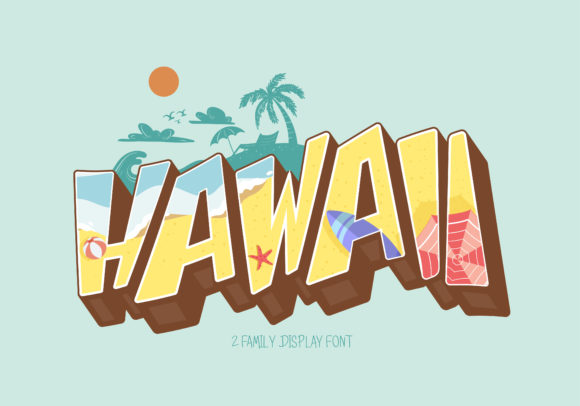
Looking to add a touch of boldness and quirkiness to your designs? Look no further than the Hawaii Font! Created by BB Type Studios, this display font is the perfect choice for anyone seeking a font with a friendly and summery feel.
With its unique charm, Hawaii Font is incredibly versatile, making it an ideal option for a wide range of contexts. Whether you're designing a tropical-themed invitation, a fun and playful logo, or even a comic strip, this font is sure to elevate your creations to a whole new level.
Imagine capturing the essence of a sun-soaked beach, the sound of crashing waves, and the vibrant colors of a tropical paradise - all embodied in a single font. Hawaii Font brings that exotic atmosphere right to your fingertips, allowing you to infuse your designs with a sense of adventure and joy.
When you download Hawaii Font, you're not just getting a typeface; you're unlocking a world of creativity. Let this font transport your audience to faraway lands, where every word becomes a visual vacation. Its captivating curves and unique letterforms will leave a lasting impression and make your work truly unforgettable.
Embrace the spirit of Hawaii and let your designs stand out from the crowd. Whether you're a graphic designer, a marketing professional, or simply someone who loves to explore their creative side, Hawaii Font is your ticket to captivating visuals and engaging content.
Don't miss out on the opportunity to add a touch of whimsy and personality to your projects. Download Hawaii Font today and discover the endless possibilities it brings to your design toolbox. Let your imagination run wild and watch as this font breathes life into your ideas, adding that extra spark that sets them apart.
Get ready to embark on a typographic adventure with Hawaii Font. It's time to make a statement, leave a lasting impression, and create designs that truly captivate. Take your creativity to new heights with this bold and quirky display font, and let the magic of Hawaii Font transform your work into a visual masterpiece.